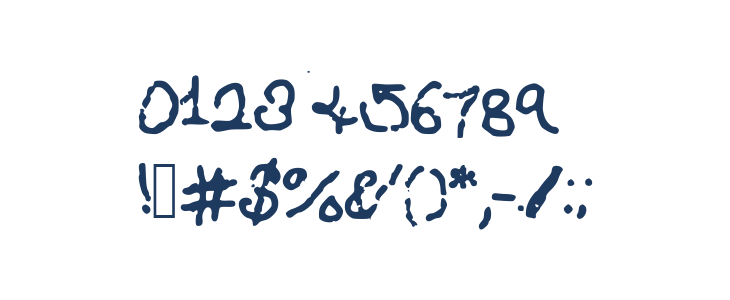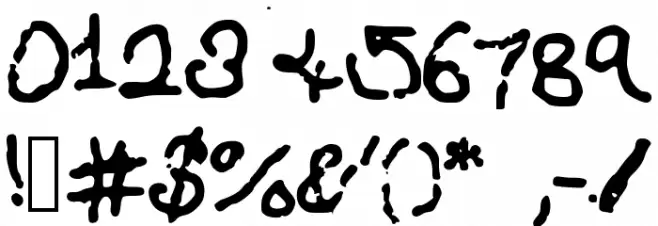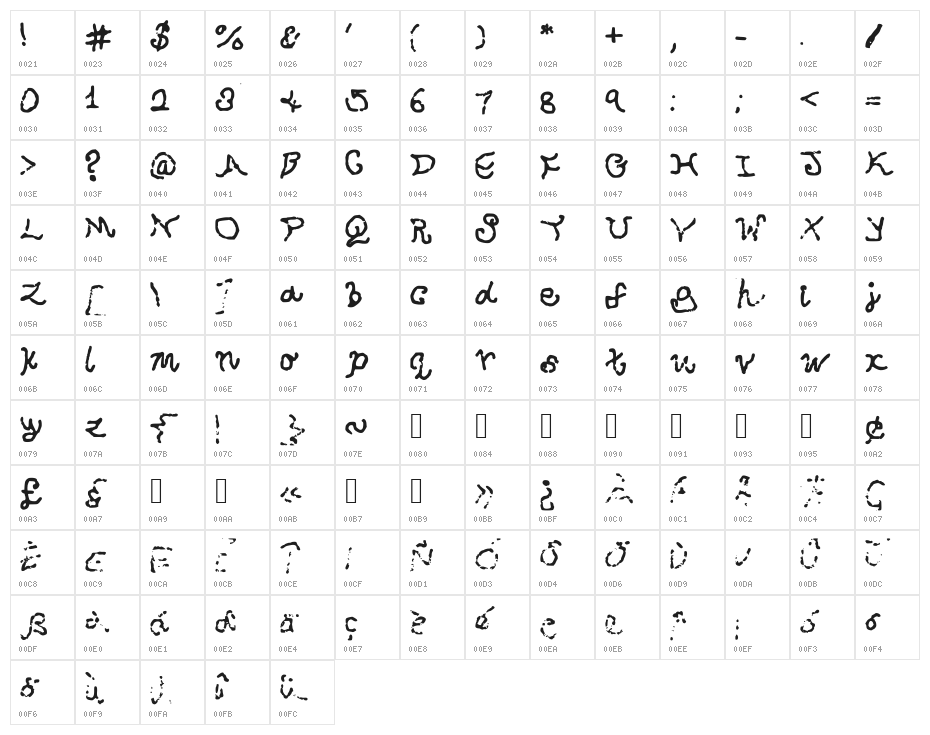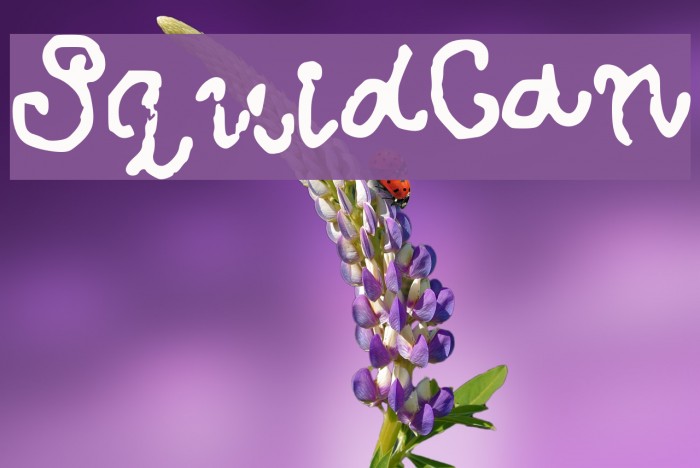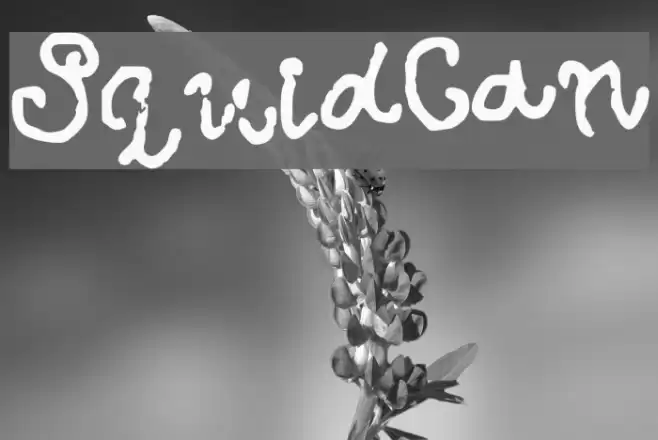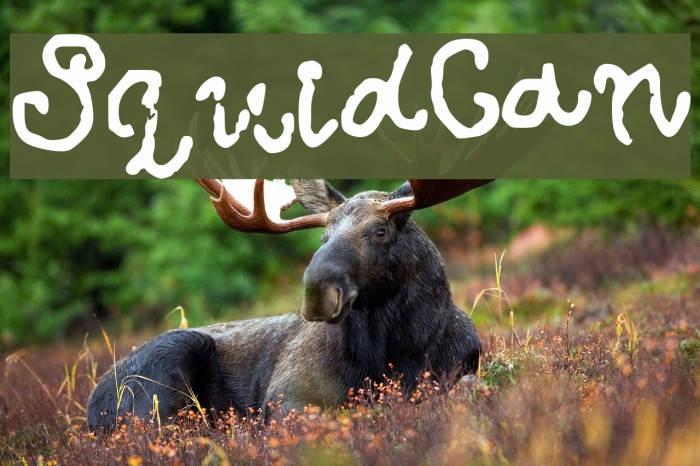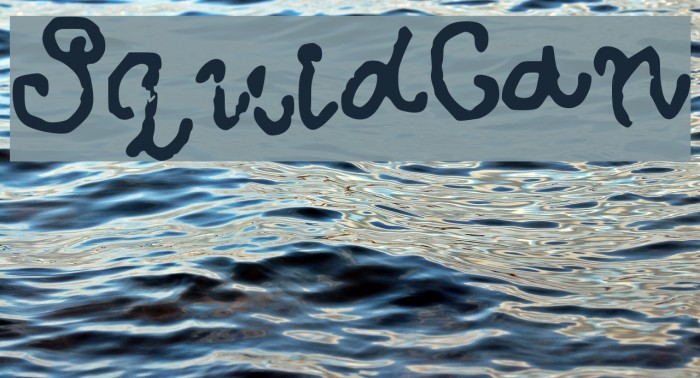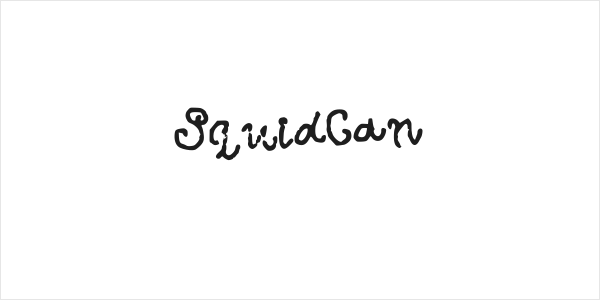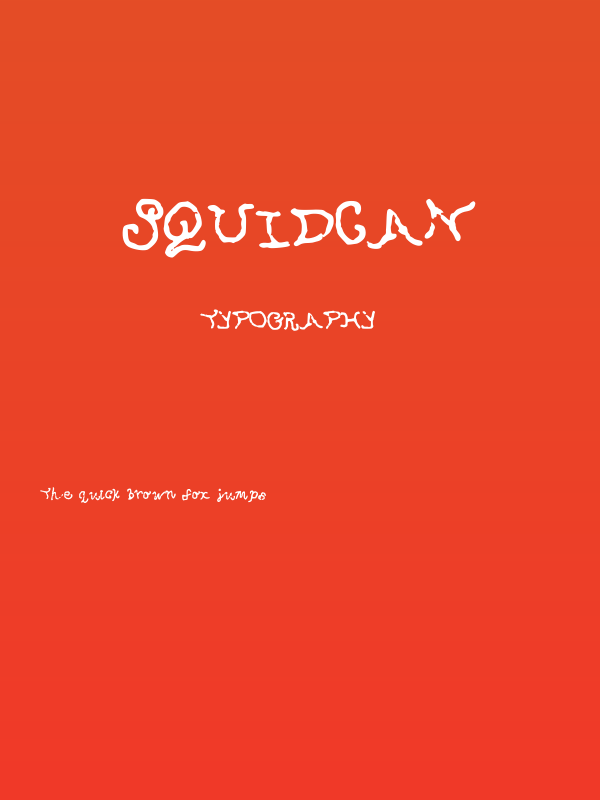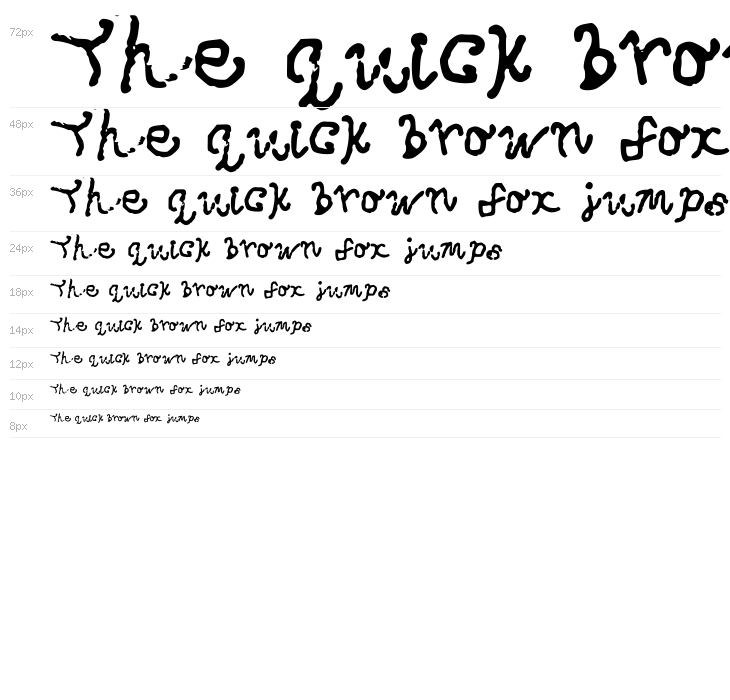
SquidCan Font
SquidCan Description
This font features a unique and artistic style with a hand-drawn appearance. The characters are irregular and have a playful, organic feel, reminiscent of ink or paint strokes. The uppercase and lowercase letters maintain a consistent style, with some characters exhibiting exaggerated curves and loops. The numbers and special characters follow the same artistic theme, adding to the overall cohesive look. This font's distinctiveness makes it stand out, offering a creative and expressive option for various design projects.
| Proposed Projects | Ideal for creative projects such as posters, album covers, artistic branding, and unique invitations. |